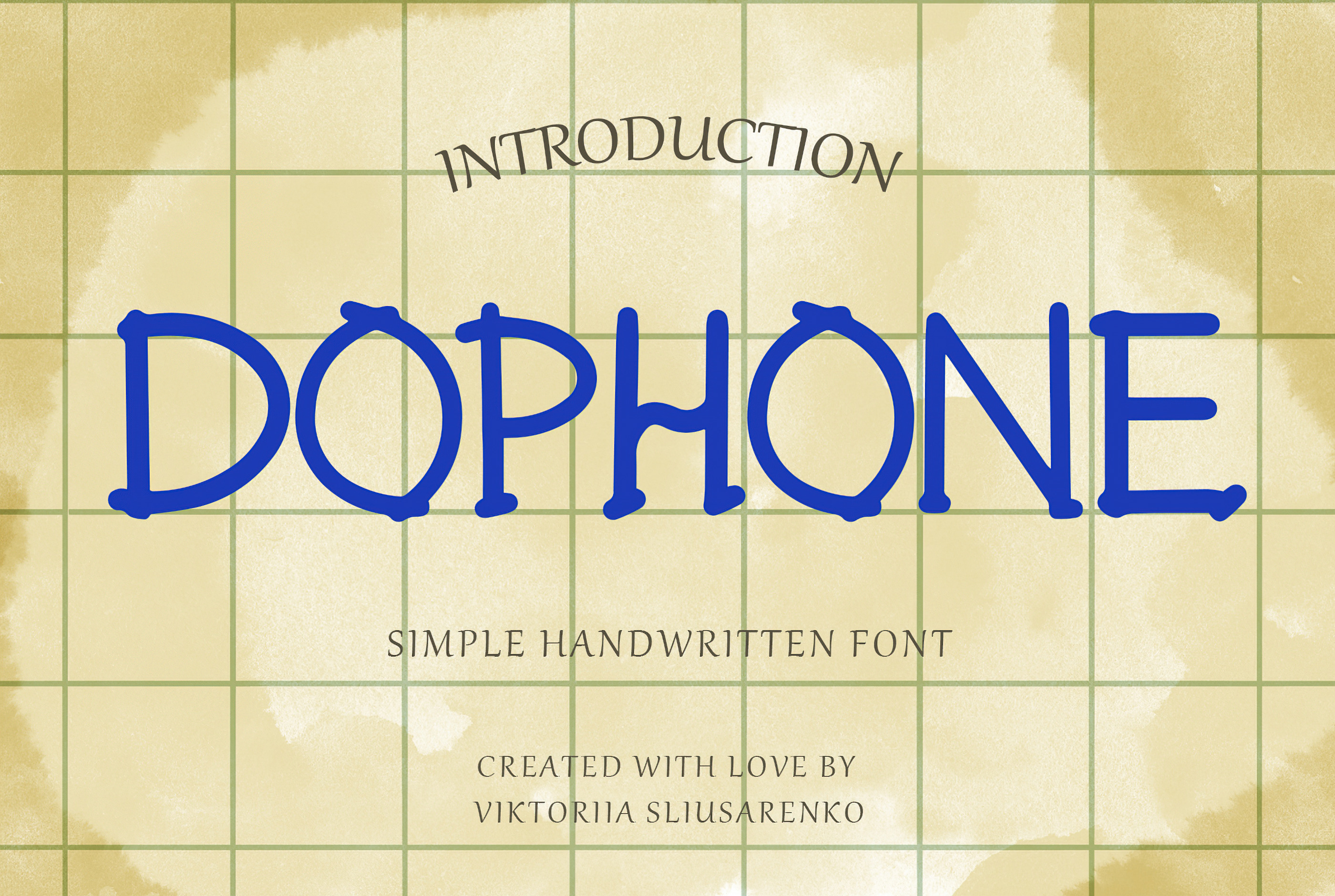
DOPHONE simple handwritten font
Introducing Dophone, the epitome of fonts, typography, calligraphy, and hand-lettered elegance. This font presents a contemporary interpretation of the timeless San Serif style. As a vector font, it offers remarkable versatility and scalability, ensuring impeccable detail and clarity at any size.
Dophone exudes a sleek and polished appearance, infusing a modern touch into its design. It emulates the writing experience with a wide ballpoint pen, evoking a sense of familiarity akin to your personal notebook. The result is a friendly and approachable aesthetic that resonates with a warm and personal touch.
With 10 meticulously crafted ligatures, Dophone facilitates seamless connections between letters, enhancing the overall flow and readability of your text. These ligatures add an extra layer of refinement and visual harmony, culminating in a polished and professional appearance.
Whether you're embarking on branding endeavors, crafting captivating digital content, or immersing yourself in print design, Dophone breathes a modern twist into the classic San Serif style. Allow Dophone to become your trusted companion, infusing your projects with a smooth, inviting, and notebook-inspired aesthetic that captivates with every stroke.